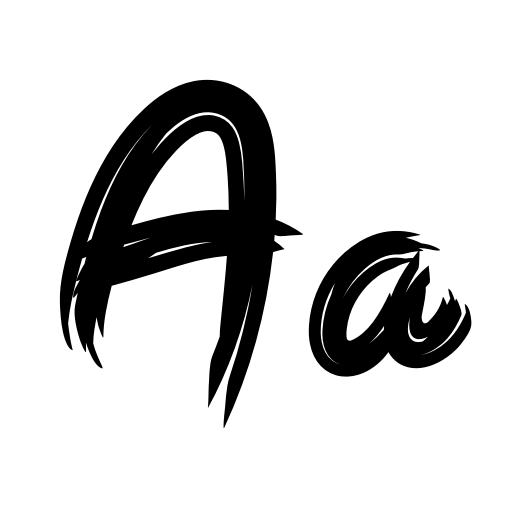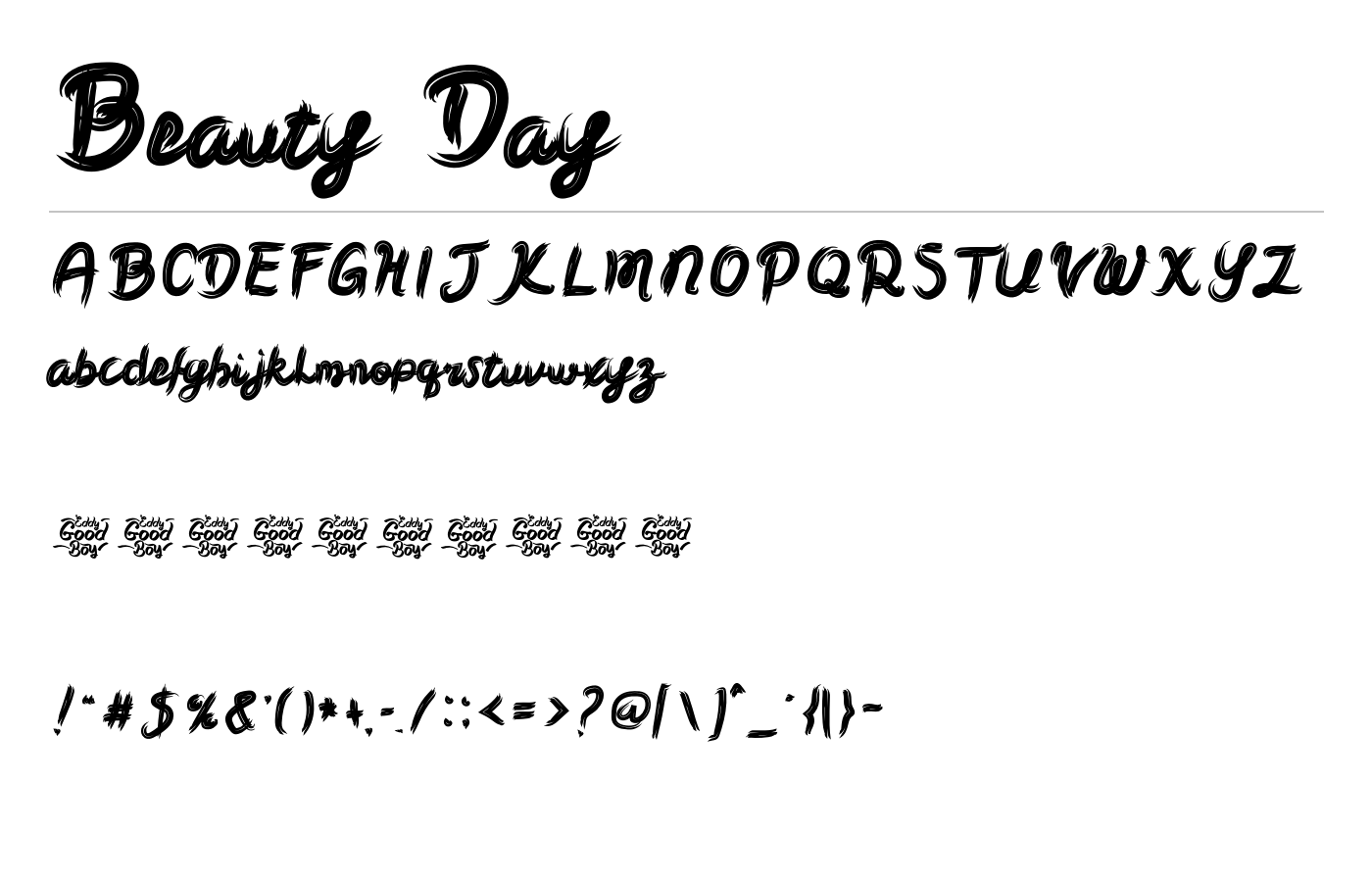
Beauty Day is a bold, brush-style script font with a lively, hand-painted feel, featuring thick to thin stroke variations that add dynamic texture and energy. Its playful yet stylish letterforms make it ideal for creative, casual branding, inviting headlines, and artistic packaging where a personal, expressive touch is desired. This font works especially well in fashion, beauty, and lifestyle projects seeking a vibrant, modern handwritten aesthetic.
Beauty Day Font
About Beauty Day Font
| Font family | Beauty Day Font |
| Designer | Nur Edi Prayitno |